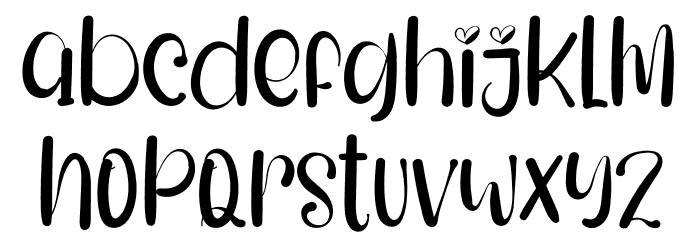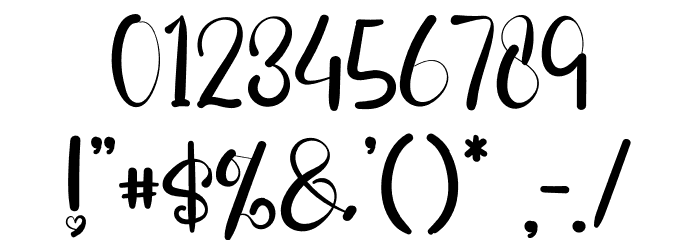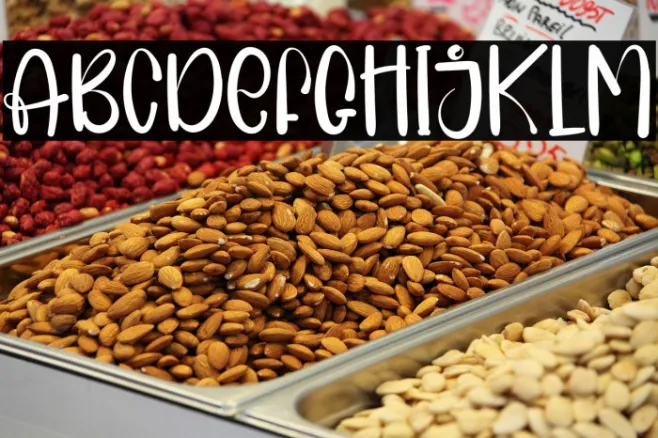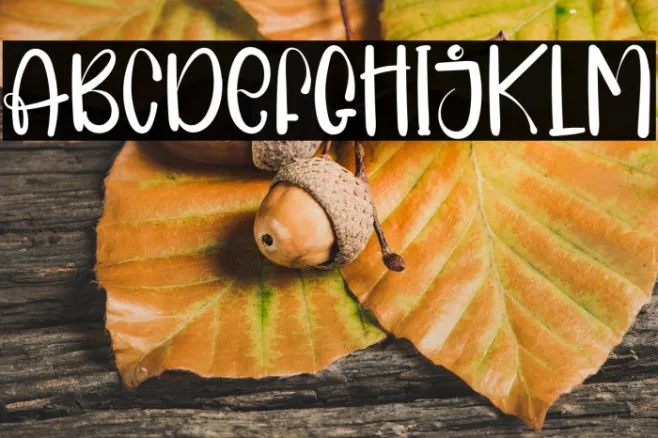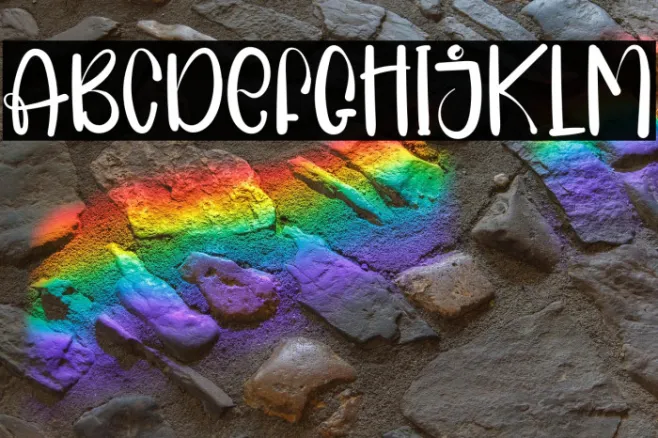
TimeToValentineRegular Font
This playful and whimsical font features a handwritten style with a touch of romance, evident in the heart-shaped details on certain characters. The letters are bold and rounded, giving a friendly and approachable feel. The uppercase and lowercase letters maintain a consistent style, with smooth curves and a slight slant, adding to its casual elegance. Numbers and special characters are designed to match the overall theme, making it versatile for various creative projects.
A playful, handwritten font with romantic heart details and bold, rounded characters.
- Font: TimeToValentineRegular
- Proposed Projects: Ideal for greeting cards, wedding invitations, love-themed posters, and playful branding projects.
- Category: Handwritten
- Use Case: Logos, Headlines, Invitations